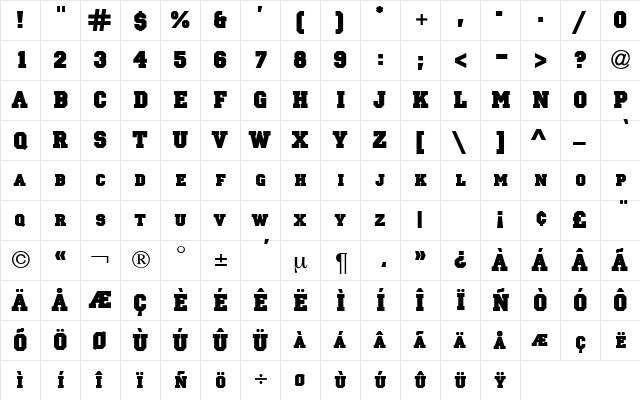
PrincessDB Normal
Design Context for PrincessDB Typeface
PrincessDB is a composed and adaptable typeface that performs quietly and consistently across a wide range of design contexts.